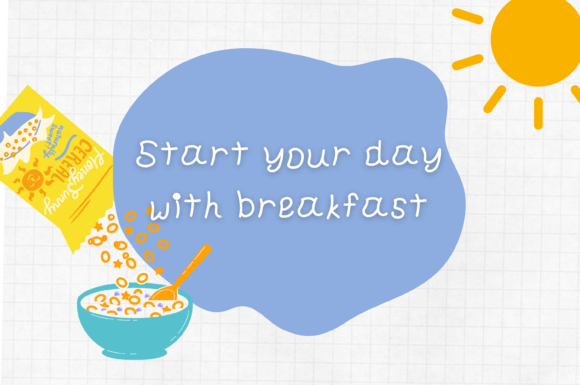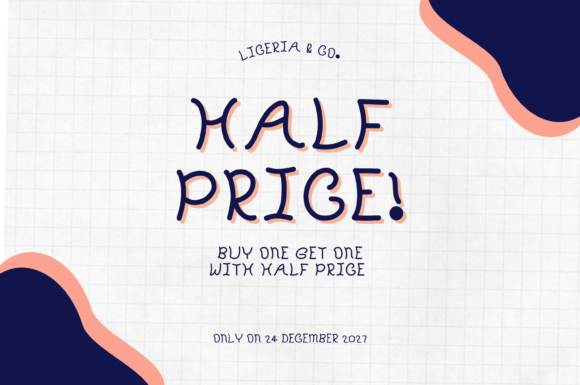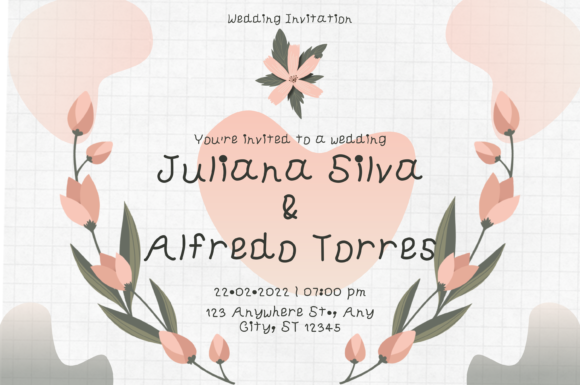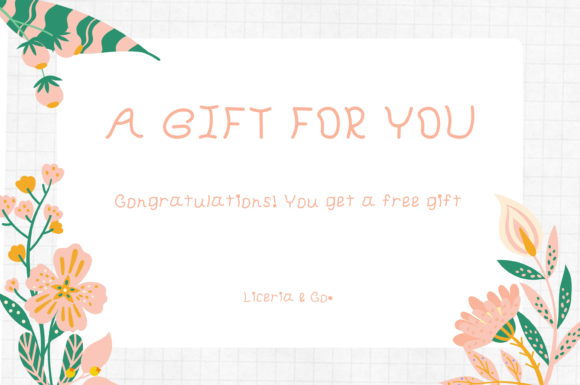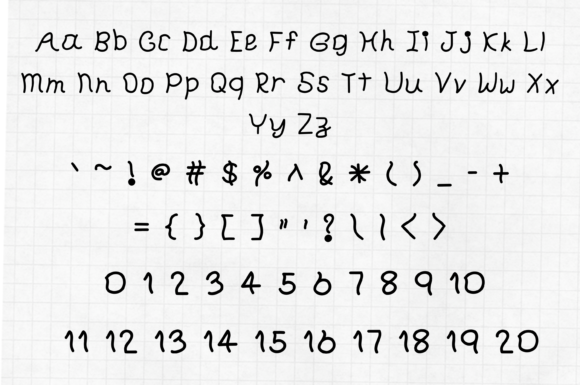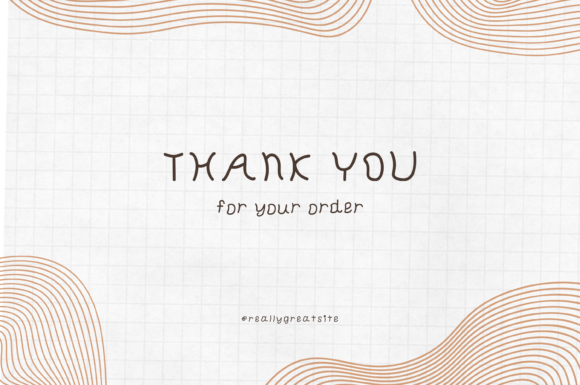
Introducing Curve Minimal Style Font: Elevate Your Designs with a Whimsical Touch
Are you on the hunt for a font that adds a dash of personality to your projects without overwhelming them? Look no further than the Curve Minimal Style Font. This charming, handwritten font is designed to bring a touch of whimsy and sophistication to your designs, making it an excellent choice for crafters and designers alike.
The Essence of Curve Minimal Style Font
Curve Minimal Style Font is a meticulously crafted typeface that strikes the perfect balance between elegance and playfulness. Its minimalistic approach ensures that your message takes center stage, while its unique, hand-drawn aesthetic adds a layer of warmth and approachability. Whether you’re working on a branding project, crafting a social media graphic, or designing an invitation, this font is sure to make your work stand out.
One of the standout features of Curve Minimal Style Font is its incredible versatility. Its clean lines and simple structure make it an excellent match for a wide range of projects, from:
• Branding and Logos: Create a memorable brand identity with a logo that exudes friendliness and approachability.
• Social Media Graphics: Elevate your social media presence with eye-catching graphics that showcase your personality.
• Invitations and Announcements: Add a personal touch to your invitations, whether it’s for a wedding, birthday party, or business event.
• Packaging: Stand out on crowded store shelves with packaging that features a unique and captivating font.
• Web Design: Enhance your website’s aesthetic with a font that is both readable and visually appealing.
Why Choose Curve Minimal Style Font?
With so many fonts available, what sets Curve Minimal Style Font apart? Here are a few reasons why designers and crafters are falling in love with this typeface:
• Unique Aesthetic: Its hand-drawn, minimalist design offers a refreshing alternative to more traditional fonts.
• Easy to Read: Despite its delicate appearance, Curve Minimal Style Font remains highly legible, even at smaller sizes.
• Customizable: Experiment with different colors, sizes, and styles to make the font your own.
• Time-Saving: With its versatility and wide range of applications, you can use this font across multiple projects, saving you time and effort.
Tips for Using Curve Minimal Style Font
To get the most out of Curve Minimal Style Font, consider the following tips:
• Pair it with Contrasting Fonts: Combine Curve Minimal Style Font with a bold, sans-serif font for a striking contrast.
• Play with Colors: Don’t be afraid to experiment with different colors to match your brand’s palette or the mood of your project.
• Use it for Headings and Subheadings: Take advantage of the font’s unique aesthetic by using it for headings and subheadings, and a more traditional font for body text.
Curve Minimal Style Font is more than just a typeface – it’s a design tool that can elevate your projects and help you connect with your audience on a deeper level. Its unique blend of whimsy and sophistication makes it an excellent addition to any designer’s toolkit. So why wait? Explore the possibilities of Curve Minimal Style Font today and discover how it can transform your designs.